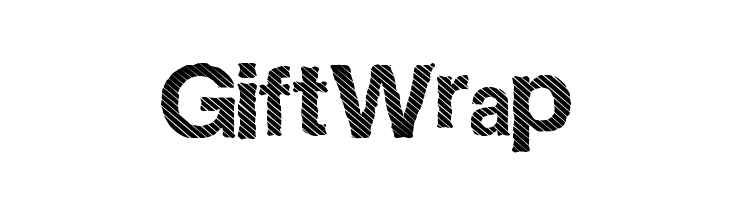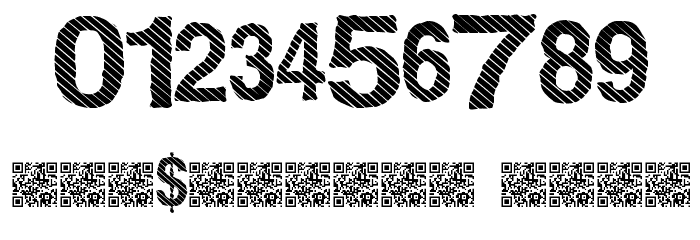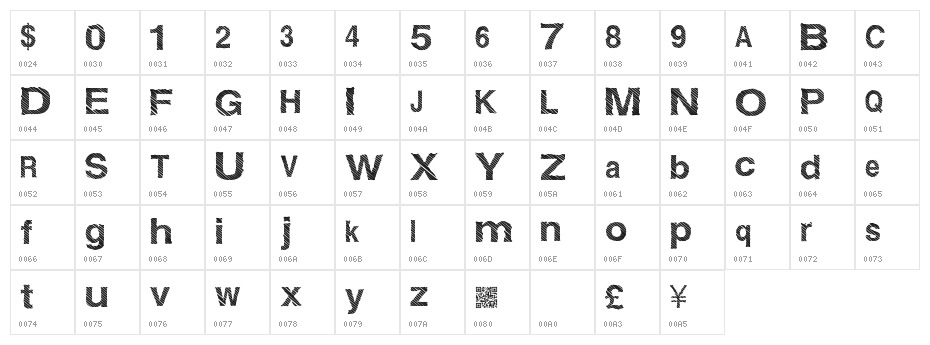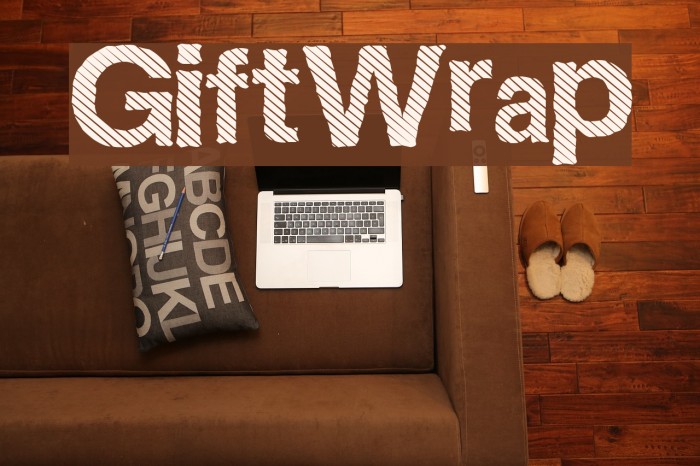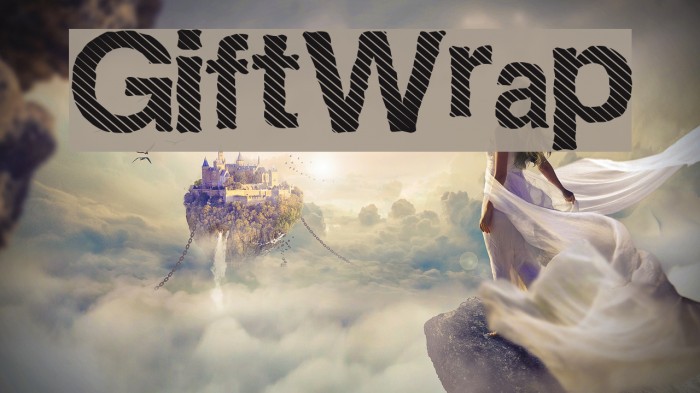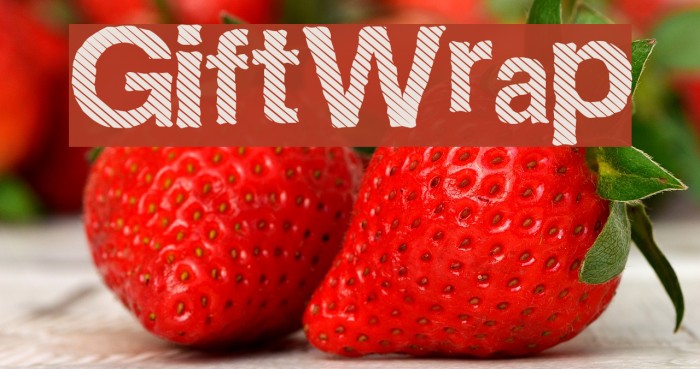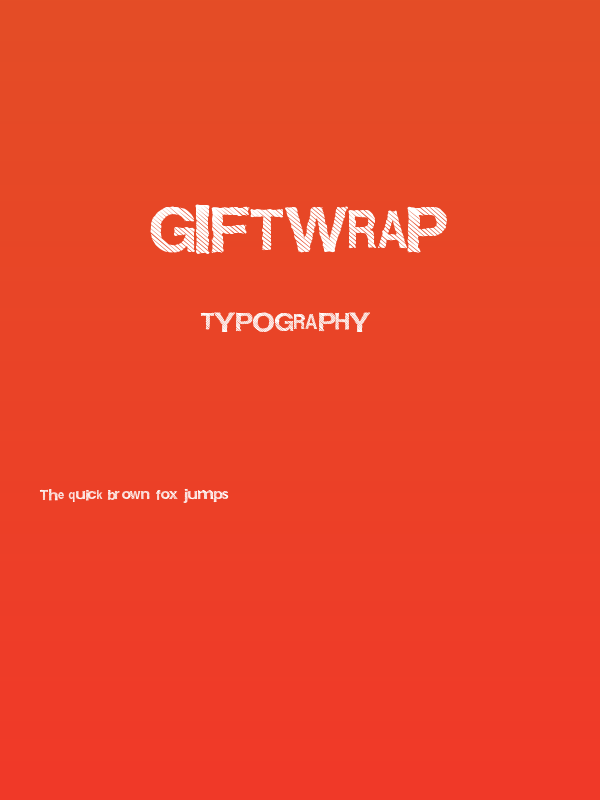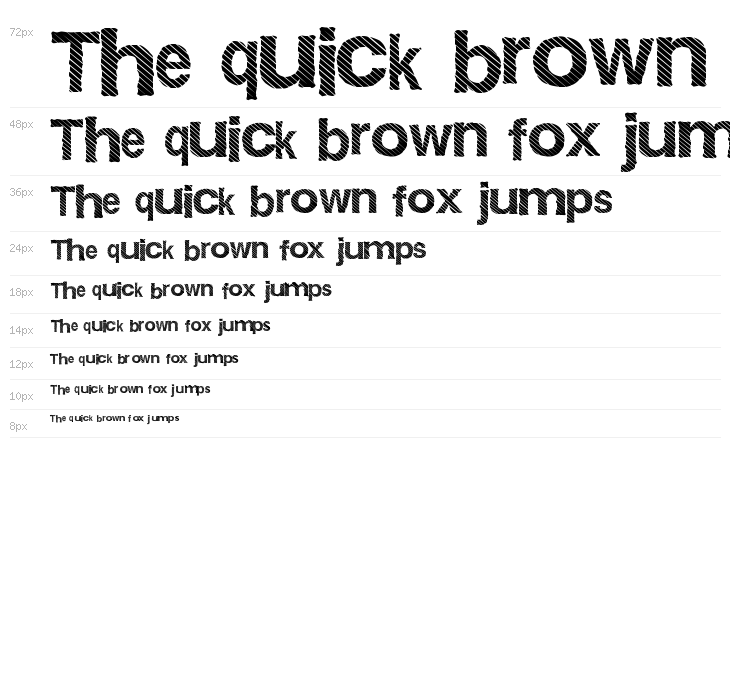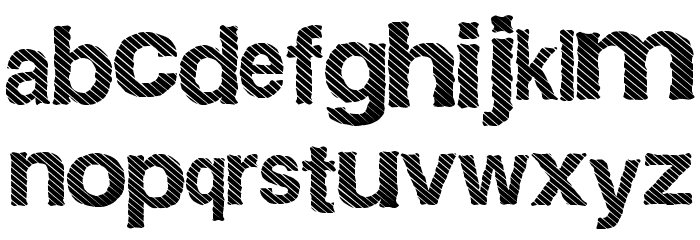
GiftWrap Font
GiftWrap Description
This font features a bold, decorative style with a unique striped pattern running diagonally across each character. The uppercase and lowercase letters maintain a consistent thickness, giving the font a robust and solid appearance. The numerals and special characters are designed to match the boldness of the letters, ensuring a cohesive look across all elements. The striped pattern adds a playful and dynamic touch, making it stand out in any design. This font is ideal for projects that require a strong visual impact, such as posters, banners, and branding materials.
| Proposed Projects | Ideal for posters, banners, branding materials, and any design needing a strong visual impact. |